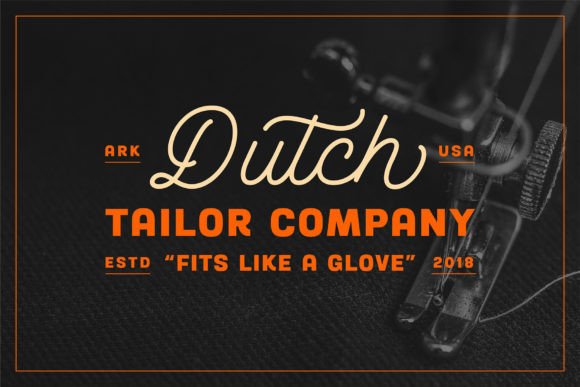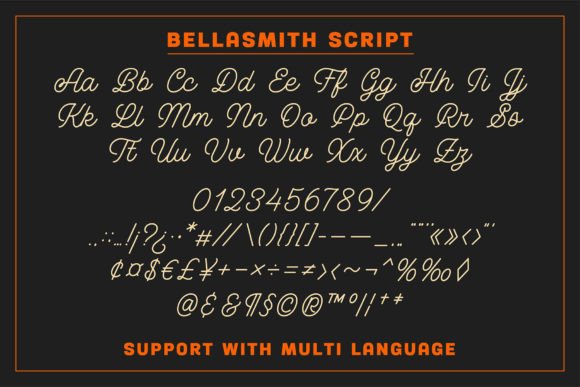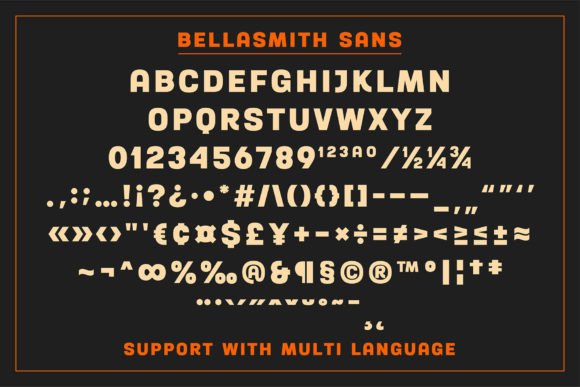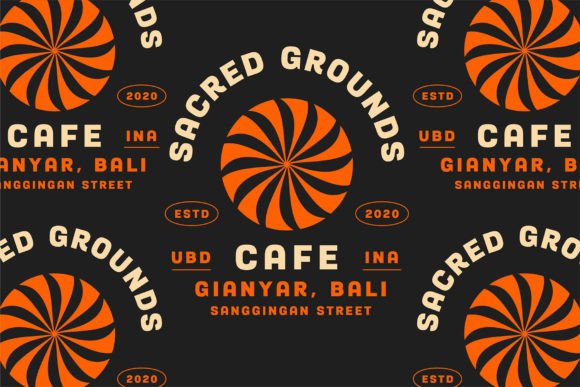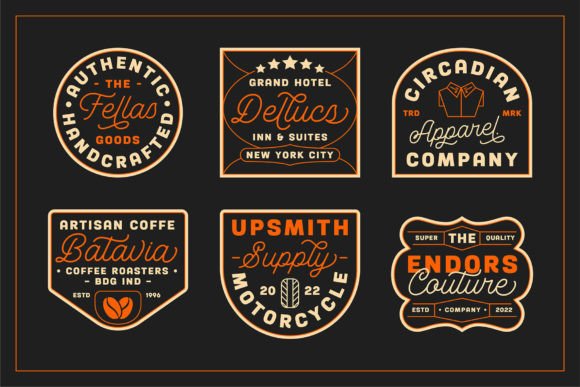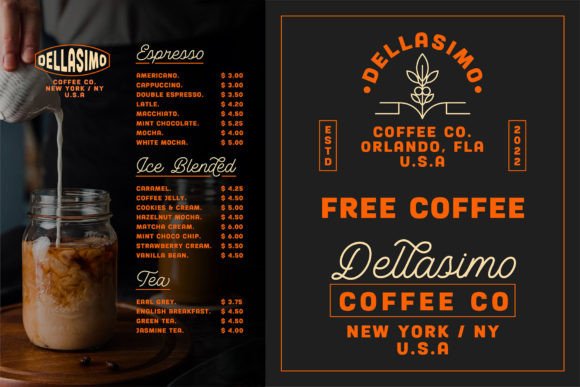
Bellasmith Font: Elevate Your Designs with this Stunning Font Duo
Are you tired of using the same old fonts in your designs? Look no further than Bellasmith, a gorgeous font duo that combines the elegance of a script font with the modernity of a sans font. This versatile font pair is perfect for a variety of design projects that require a personalized touch, such as restaurant menus, product packaging, greeting cards, logos, and more.
What is Bellasmith Font?
Bellasmith is a carefully crafted font duo that consists of two complementary fonts: a beautiful script font and a clean sans font. The script font features flowing curves and elegant lines, while the sans font provides a modern and sleek contrast. Together, they create a stunning visual combination that adds a touch of sophistication to any design.
Key Features of Bellasmith Font
- Font Duo: Bellasmith includes two fonts: a script font and a sans font, allowing you to mix and match to create a unique look.
- Elegant Script Font: The script font features beautiful, flowing curves and elegant lines, perfect for adding a touch of sophistication to your designs.
- Modern Sans Font: The sans font provides a clean and modern contrast to the script font, making it ideal for designs that require a bit of edge.
- Highly Versatile: Bellasmith is suitable for a wide range of design projects, from restaurant menus and product packaging to greeting cards and logos.
- Easy to Read: Both fonts are highly legible, making them perfect for designs that require a clear and easy-to-read text.
Uses for Bellasmith Font
Bellasmith is an incredibly versatile font duo that can be used in a variety of design projects, including:
- Restaurant Menus: Add a touch of elegance to your restaurant menu with the script font, and use the sans font for menu items and prices.
- Product Packaging: Use Bellasmith to create eye-catching product labels and packaging that stands out on store shelves.
- Greeting Cards: Create beautiful and personalized greeting cards with the script font, and add a modern touch with the sans font.
- Logos: Use Bellasmith to create a unique and memorable logo that combines elegance and modernity.
- Wedding Stationery: Bellasmith is perfect for wedding stationery, including invitations, save-the-date cards, and thank-you notes.
Why Choose Bellasmith Font?
With so many fonts available, why choose Bellasmith? Here are just a few reasons:
- Unique and Memorable: Bellasmith is a unique and memorable font duo that will set your designs apart from the crowd.
- High-Quality: Bellasmith is a high-quality font duo that is carefully crafted to provide a beautiful and consistent look.
In conclusion, Bellasmith is a gorgeous font duo that is perfect for designers and crafters looking to add a touch of elegance and modernity to their designs. With its highly versatile and easy-to-use fonts, Bellasmith is suitable for a wide range of design projects, from restaurant menus and product packaging to greeting cards and logos. Whether you’re a professional designer or a DIY crafter, Bellasmith is a must-have font duo that will elevate your designs to the next level.